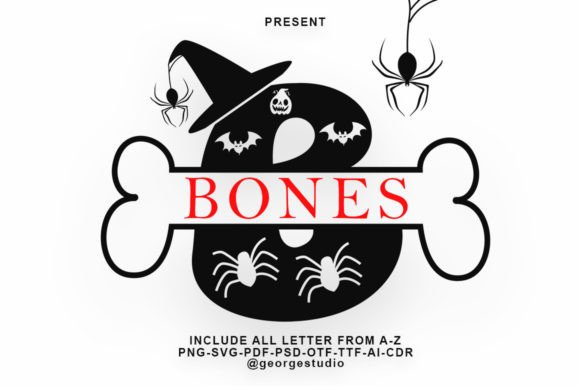
The Bone-Chillingly Awesome Bones Font: A Designer’s Dream Come True
I’ll never forget the Halloween design project that had me scratching my head for hours. My client wanted a spooky monogram for their haunted house invitation, and I was determined to deliver. But, as I scrolled through font after font, nothing seemed quite right. That was until I stumbled upon the Bones Font – a game-changer that instantly elevated my design from meh to mesmerizing.
So, what makes the Bones Font so special? Here are a few things that had me hooked:
- ✨ Uniquely spooky and eye-catching design
- ✅ Perfect for Halloween-themed designs, from invitations to social media graphics
- 💀 Works beautifully as a monogram or standalone decorative element
- 🎃 Highly versatile and adaptable to various design styles
Of course, no font is perfect, and the Bones Font has a few minor quirks:
- 🤔 Some users may find the font a tad too ornate for certain design projects
- ⚠️ Limited use outside of Halloween or spooky-themed designs (but that’s not necessarily a bad thing!)
The Story Behind Bones Font
Legend has it that the Bones Font was created by a mysterious designer who wanted to capture the essence of Halloween in a single, eye-catching typeface. Inspired by old tombstones, creepy mansions, and the supernatural, this font is the perfect blend of spooky and sophisticated.
| Font Name | Bones Font |
| Author | George Studio |
| What makes the Bones Font so unique? | The Bones Font features an incredibly unique and spooky monogram design, making it perfect for Halloween-themed designs. |
| Is the Bones Font suitable for non-Halloween designs? | While the Bones Font is designed with Halloween in mind, it can be used for other projects – but it might not be the best fit for non-spooky designs. |